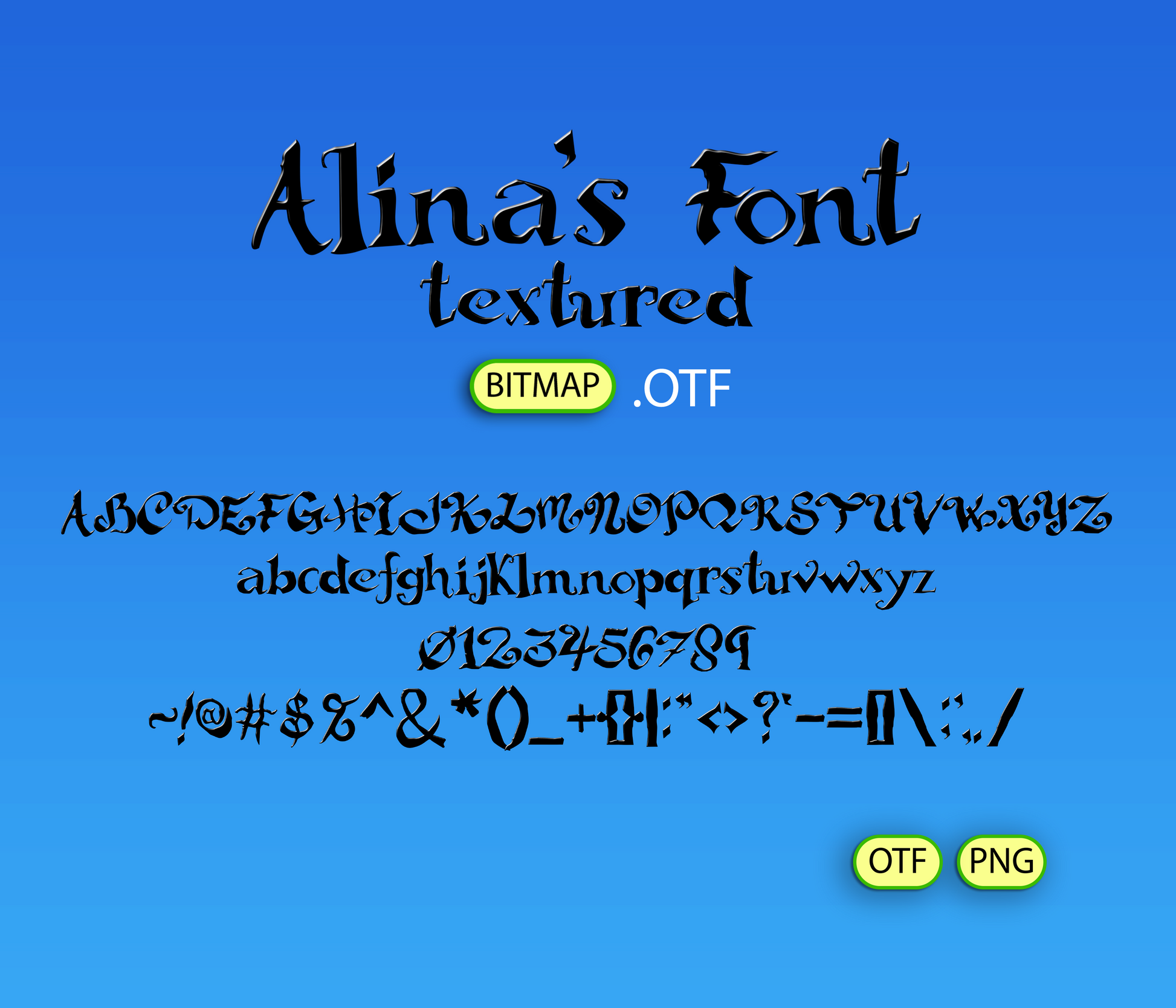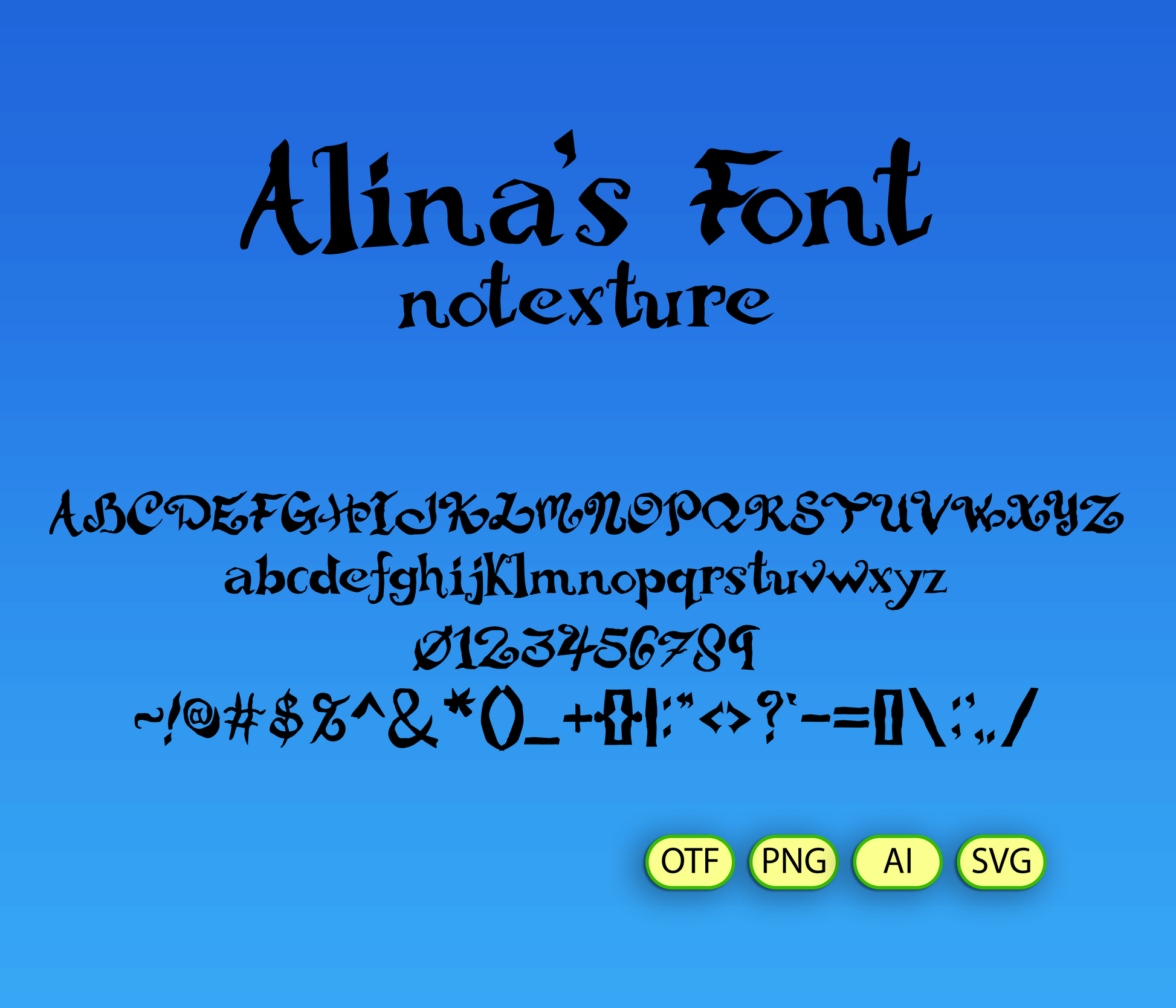
Secret Agent Mystery Manor Font Textured
Step into the enigmatic world of detective adventures with our Secret Agent Mystery Manor font, capturing the essence of childhood sleuthing and spooky exploration. Perfect for puzzle enthusiasts, party planners, event organizers, and designers, this font brings the curious, investigative spirit of young detectives to your projects. Create intriguing materials, merchandise, or digital content with the mysterious energy of hidden objects and shadowy corridors.
Our Secret Agent Mystery Manor font features playful, curious lines and adventurous characters reflecting the world of junior sleuths. Ideal for:
- Event Promotions: Create exciting invites, posters, and banners for detective-themed parties, scavenger hunts, and haunted house events that capture the spirit of childlike wonder
- Merchandise Design: Perfect for t-shirts, posters, and accessories that showcase the thrilling side of hidden object adventures
- Digital Media: Enhance websites, blogs, and social media with intriguing headers and graphics that express the joy of solving mysteries
- Children's Content: Add authentic flair to educational materials, game designs, and creative projects inspired by observation challenges
- Personal Projects: Bring investigative charm to scrapbooking, DIY crafts, and home decor inspired by the world of eerie mansions and secret passages
Our font pays tribute to the captivating world of young detectives, empowering your designs with its inquisitive and adventurous spirit. Whether crafting promotional materials, designing merchandise, or adding a mysterious touch to personal projects, this font communicates the exciting essence of childhood investigation. Ready to inject puzzle-solving intrigue into your creations? This font is your key to exciting, impactful design.